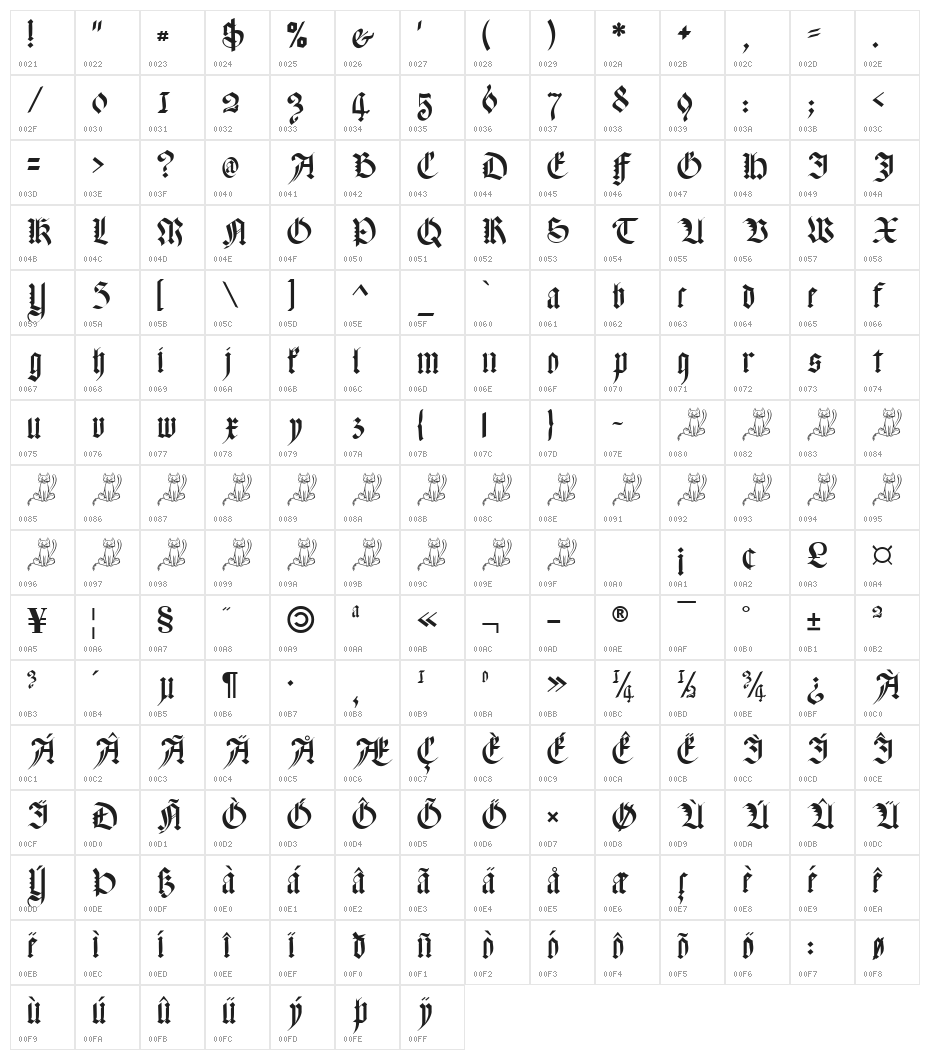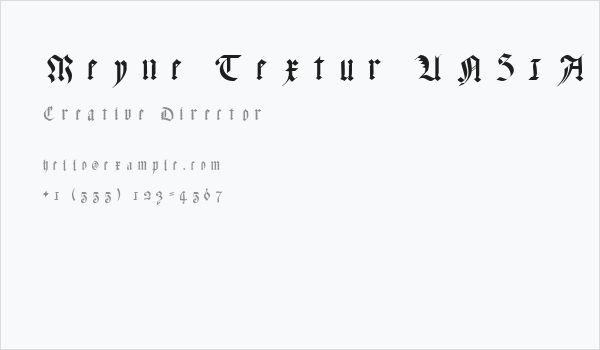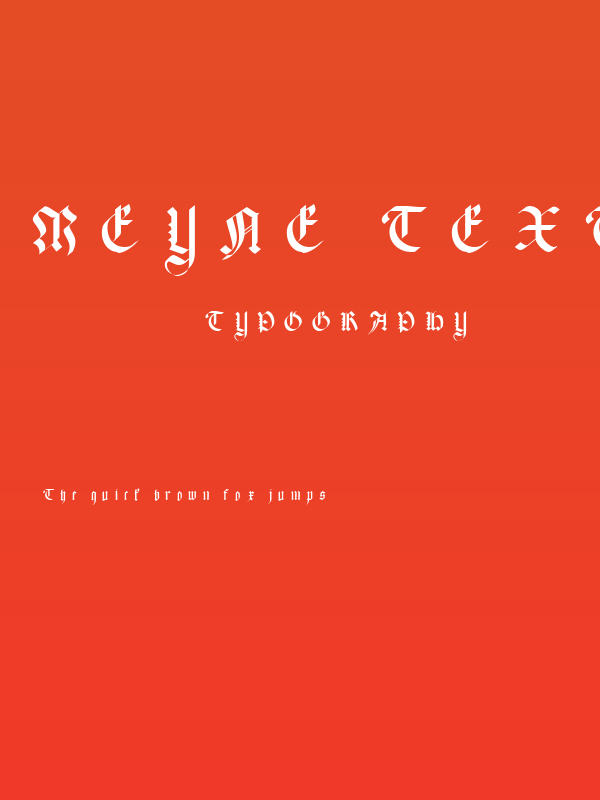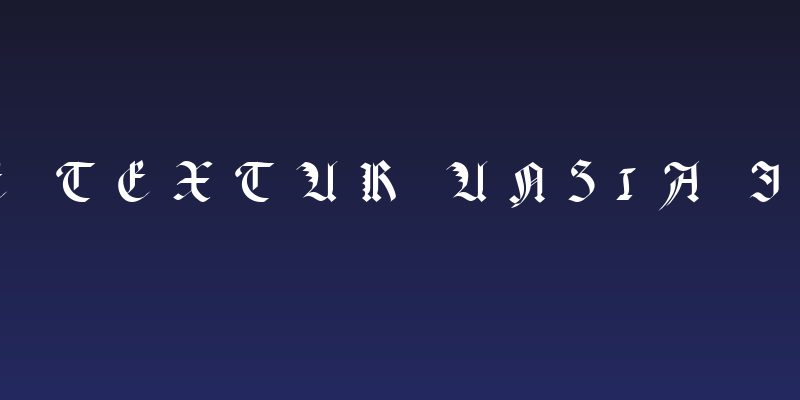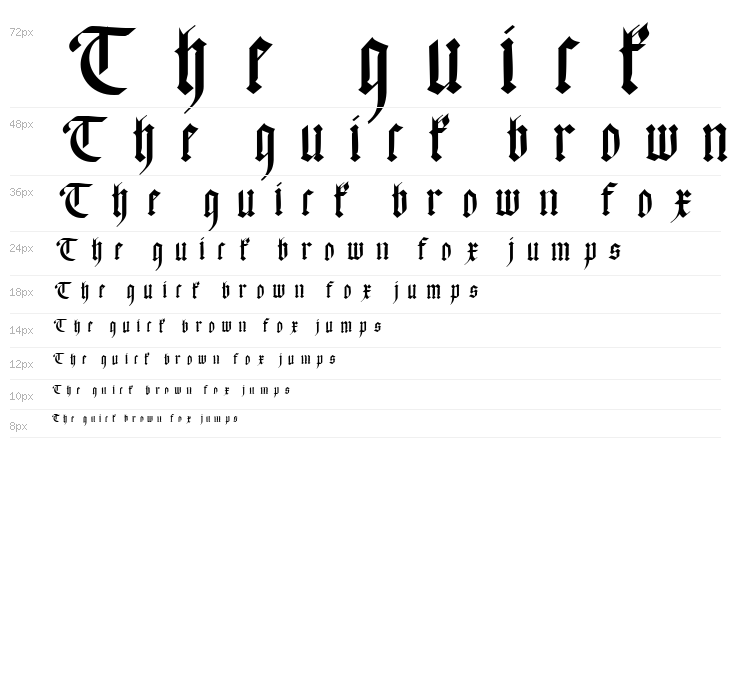
Meyne Textur UNZ1A Italic Font
Meyne Textur UNZ1A Italic Description
This font exhibits a classic blackletter style, characterized by its intricate and ornate letterforms. The uppercase letters are bold and dramatic, with sharp angles and elaborate flourishes that give a sense of historical elegance. The lowercase letters maintain the same level of detail, with a slightly more condensed form, enhancing readability while preserving the decorative nature. Numbers and special characters follow the same stylistic cues, ensuring a cohesive appearance across all glyphs. The overall design is reminiscent of medieval manuscripts, making it ideal for projects that require a touch of antiquity and sophistication.
| Proposed Projects | Ideal for historical documents, wedding invitations, book covers, and branding that requires a medieval or gothic aesthetic. |